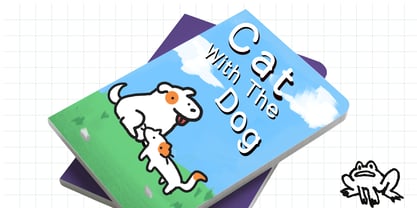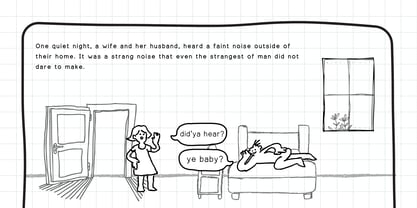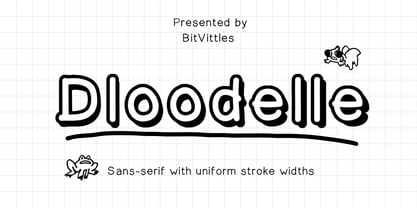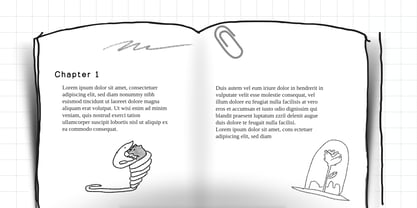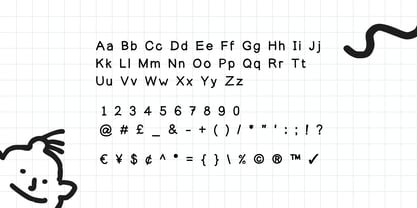
Dloodelle
by BitVittles
The Dloodelle Font Family was designed by Novita Sari and published by BitVittles. Dloodelle contains 2 styles and family package options. More about this family
Boost your handicraft design with this playful typeface! the handwritten look like it came straight out of a student's notebook. This typeface is perfect for comics, children's books, poster, and anything that needs the look like it needs a little whimsical look.
What is so special about this typeface?
Make your words pop with a font that's as bouncy as your imagination!
No BORING stiff letter here, this doodly type brings energy and creativity to any project! and has a handcrafted charm to it, with it's rough edges uneven strokes making every letter feel unique.
Designers: Novita Sari
Foundry: BitVittles